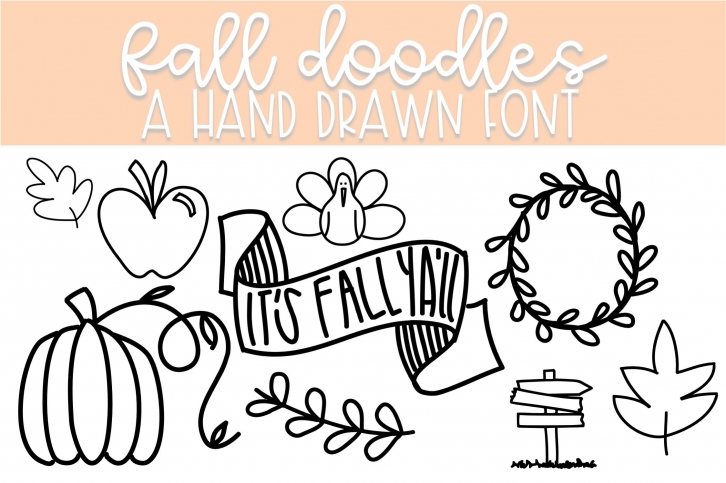
Fall Doodle is a great font that was designed by Fairways and Chalkboards. Imagine the amount of combinations you can create using this font! The archive is 1.58 MB and it was released on October 8, 2020. Fall Doodle looks beautiful on wedding invitations, greeting cards, logos, posters, labels, t-shirt designs, logos, business cards and is perfect for use in ink or watercolor works, fashion, magazines, packaging and food menus, children's books and more!